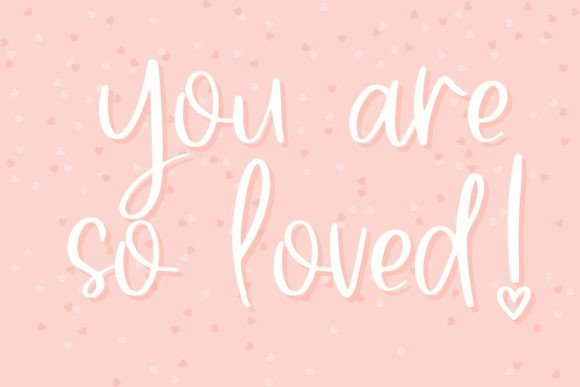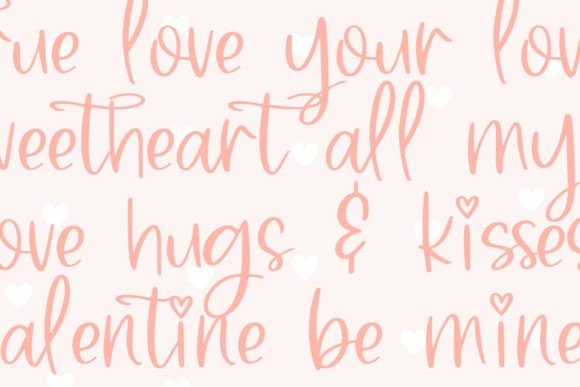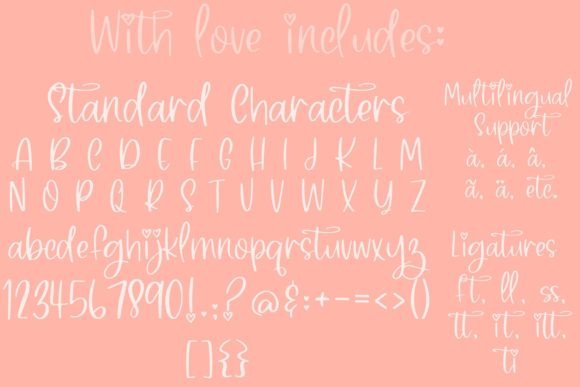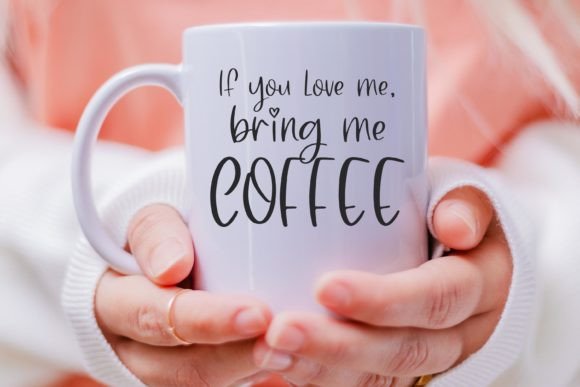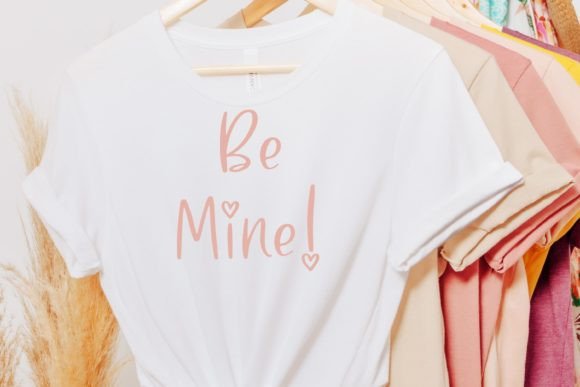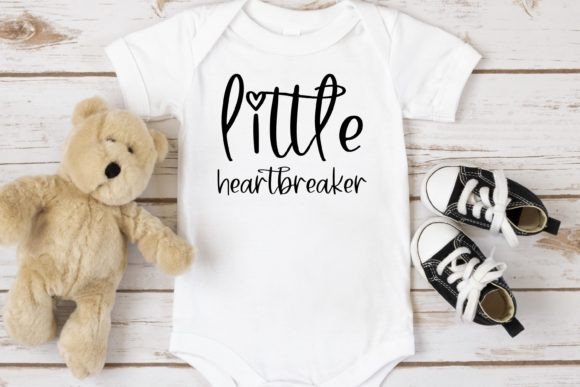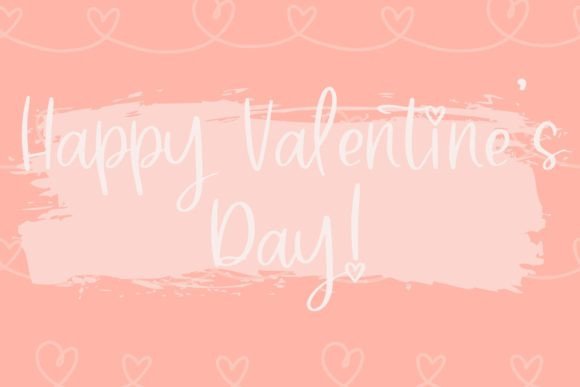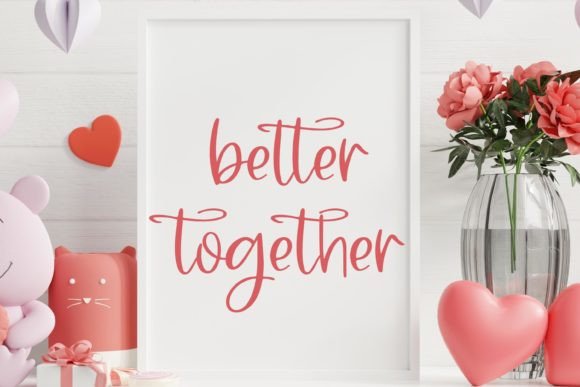
With Love Font
About With Love Font
With Love Font is a charming and adorable handwritten typeface designed to bring a romantic and playful touch to your creative projects. This cute font features heart-shaped details that make it perfect for Valentine’s Day designs, greeting cards, t-shirts, stickers, social media posts, and crafting projects. Whether you’re working on festive decor or personalized gifts, With Love adds a sweet and loving vibe that makes every design feel special.
Perfect for Romantic and Fun Designs
With Love Font’s soft and playful strokes are ideal for a variety of projects, especially those centered around love and celebration. It’s great for:
• Valentine’s Day cards and decorations
• Wedding and anniversary invitations
• T-shirt and apparel designs
• Stickers and labels for gifts
• Social media posts and digital greetings
Its heart-themed characters add an extra layer of warmth and affection, making your designs truly stand out.
Why Choose With Love Font?
With Love Font is favored because of its:
• Cute, handwritten style with heart accents
• Friendly and approachable letterforms
• Versatile use across print and digital media
These features make it an excellent choice for designers and crafters looking to add a romantic flair.
Add Warmth and Affection to Your Creations
Typography can set the mood for your projects, and With Love Font excels at conveying feelings of romance and joy. Whether for festive holiday decor or personalized gifts, this font brings personality and heartfelt emotion to your work.
Wide Range of Applications
With Love Font is perfect for:
• Handmade greeting cards and invitations
• Personalized gift packaging
• Apparel and merchandise designs
• Social media content and blog graphics
• Scrapbooking and DIY crafts
Its charming and romantic style enhances both casual and formal projects.
In conclusion, With Love Font is a cute and romantic handwritten script that adds a playful and affectionate touch to any design. Ideal for Valentine’s Day and love-themed projects, it helps you create heartfelt and memorable visuals. Add With Love to your font collection to spread warmth and charm through your creative work.